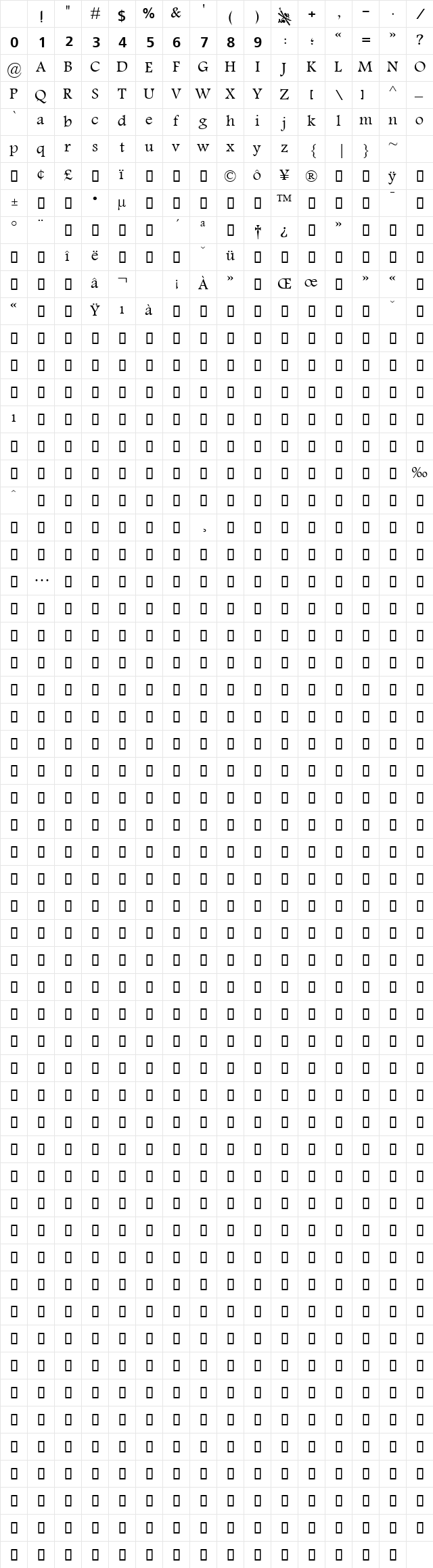
Complete ma3ali-aqsa glyph index. Displaying only characters natively supported by ma3ali-aqsa font.
ma3ali-aqsa is a composed and adaptable typeface that performs quietly and consistently across a wide range of design contexts.